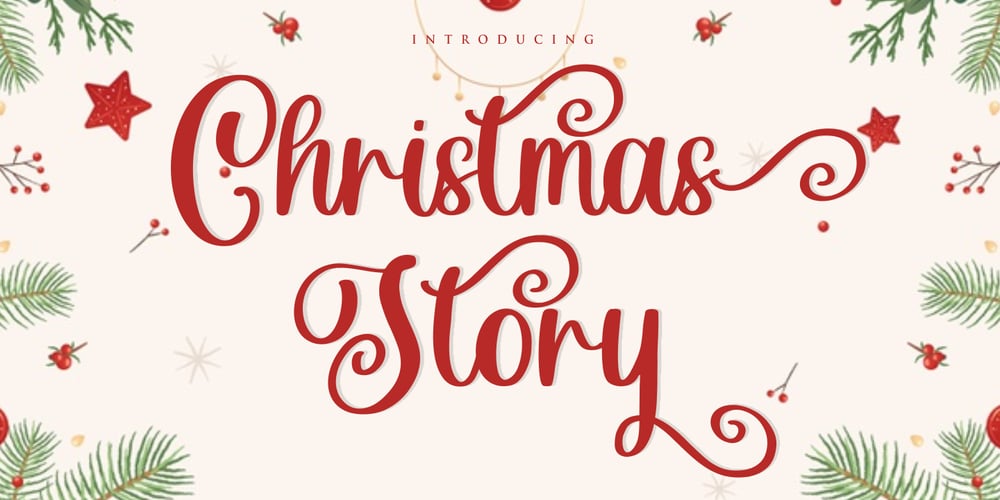
Christmas Story
Christmas Story font
Christmas Story Font Family was designed by Muhammad Fikry and published by Fikryal. Christmas Story contains 1 styles and family package options. Christmas Story is a beautiful Script font perfect for crafting, branding, invitation, stationery, wedding designs, social media posts, advertisements, product packaging, product designs, label, photography, watermark, special events or anything.Christmas Story with full set of uppercase and lowercase letters, swash alternates, ligatures,multilingual symbols, numerals and punctuation.